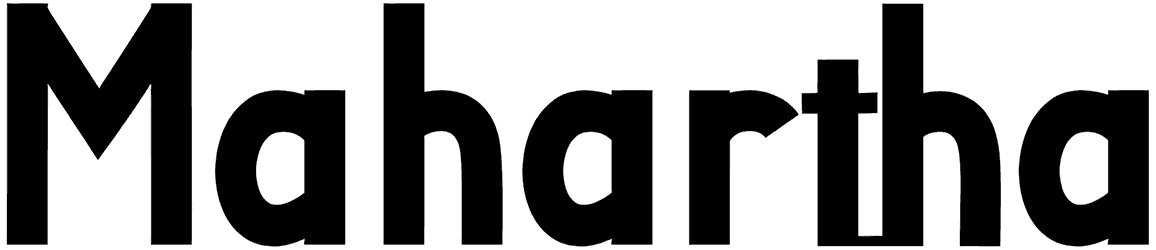
Mahartha Font
Calling for a smart touch to flash the interest of your viewers and expand your graphical shows? So, Mahartha can achieve that. Modernity, integrity, and commitment vibe make this sans-serif font a unified pick for many various themes.